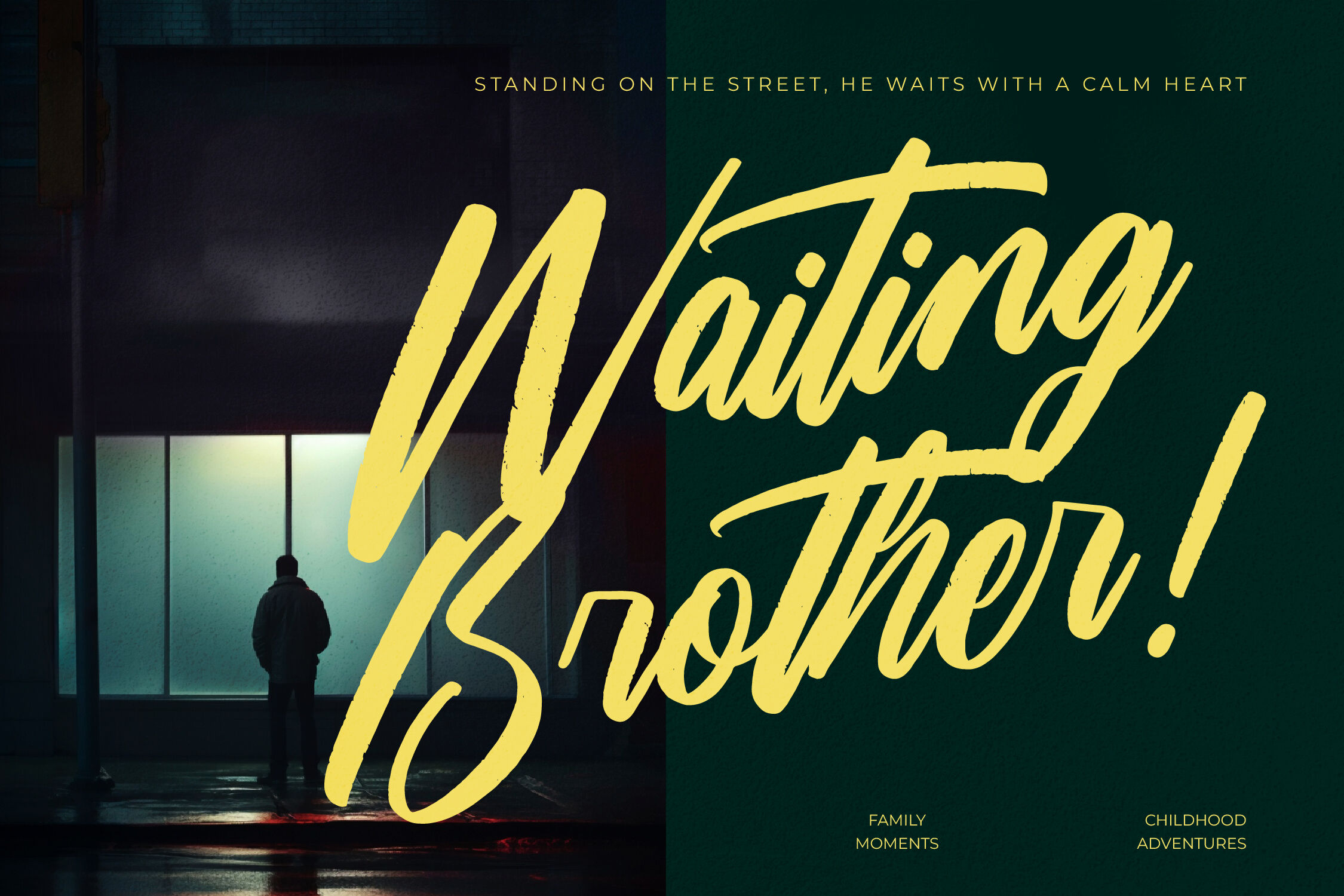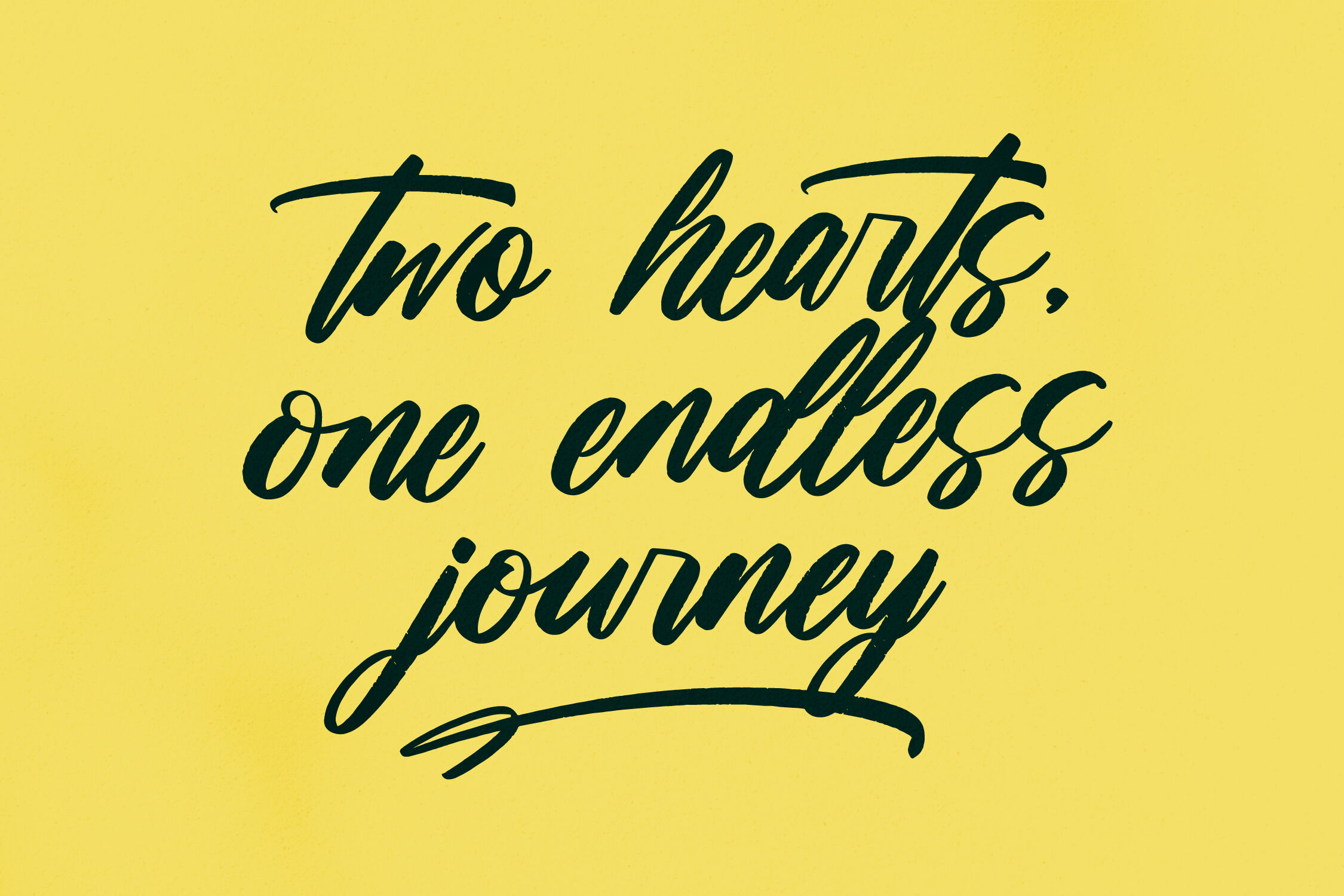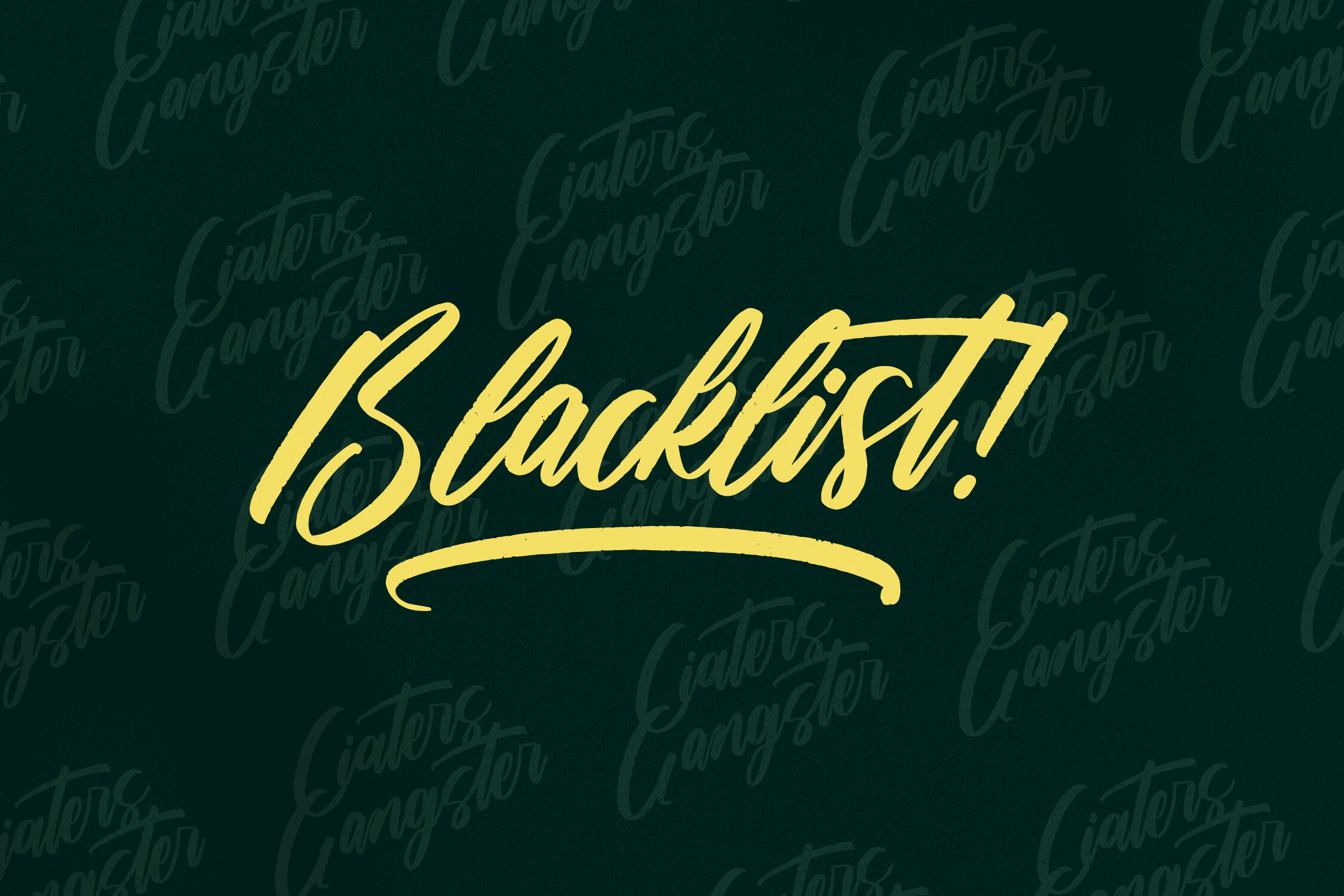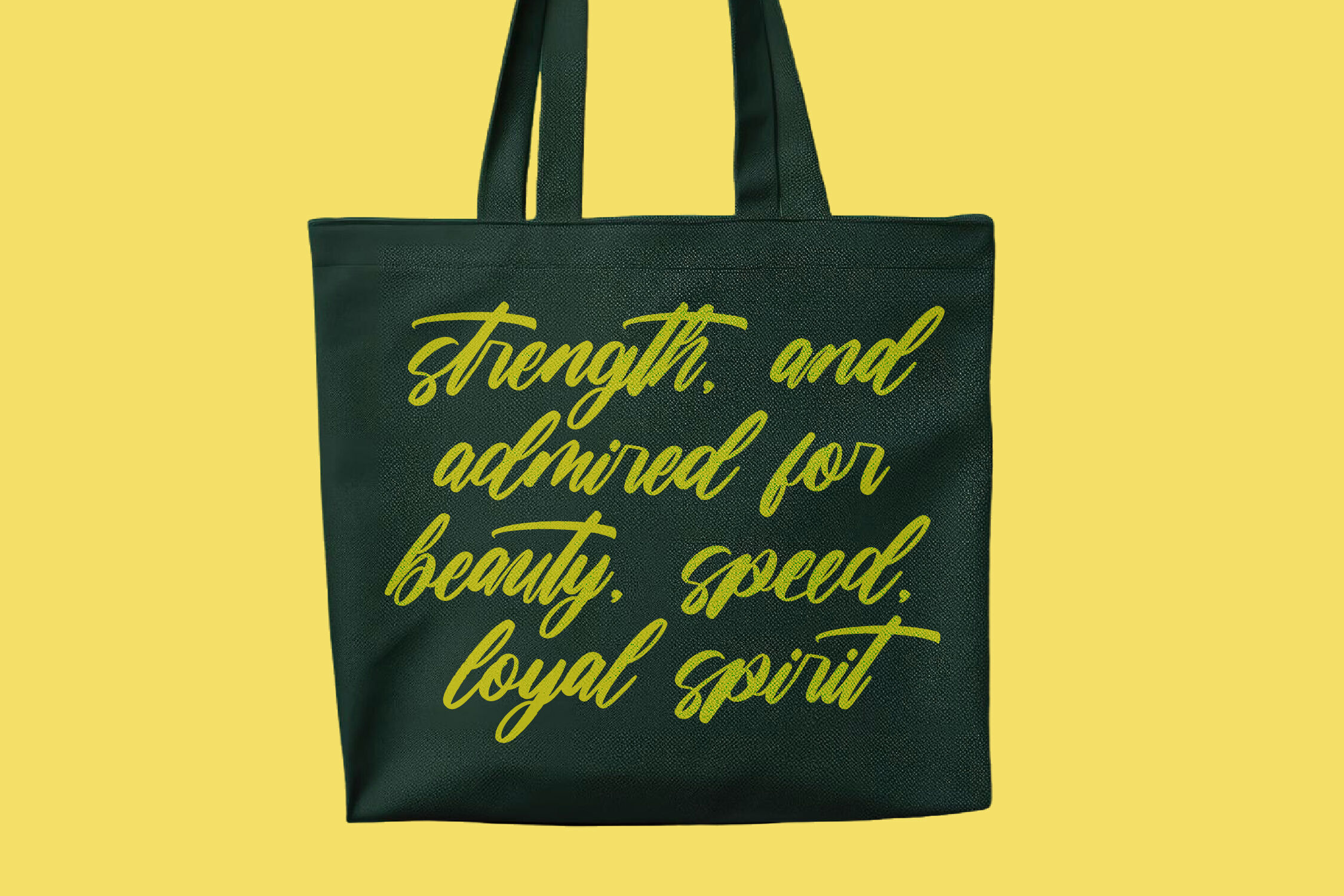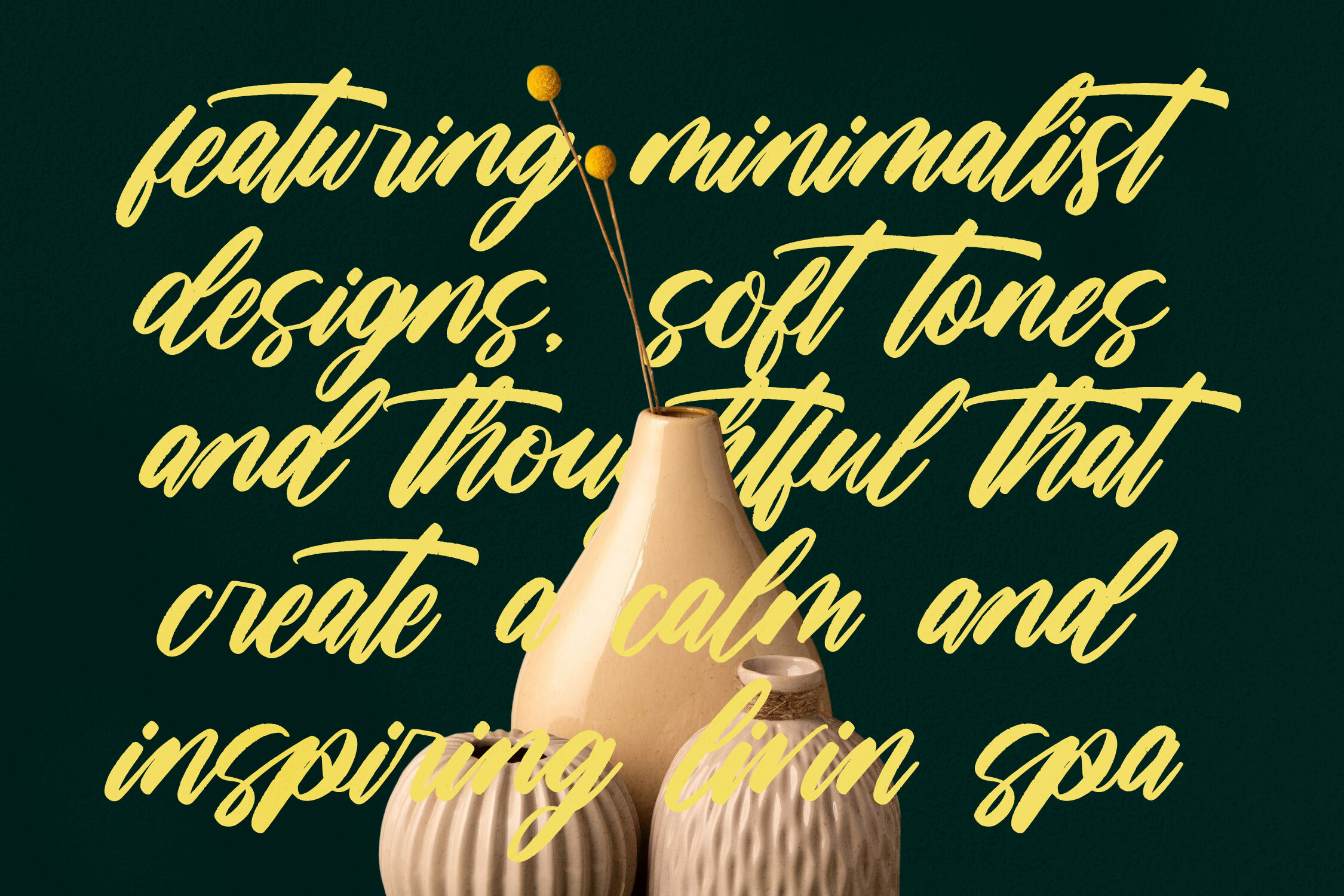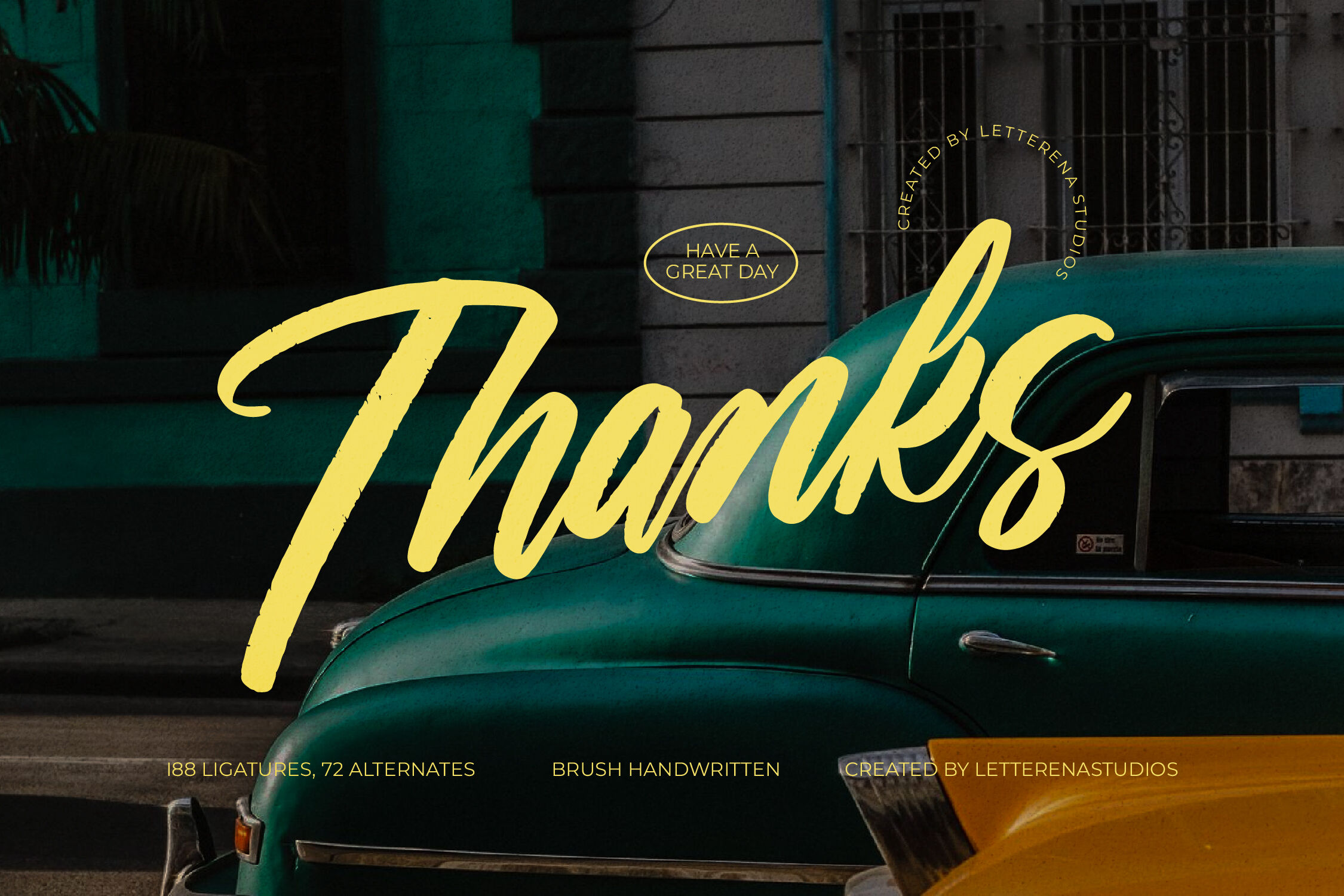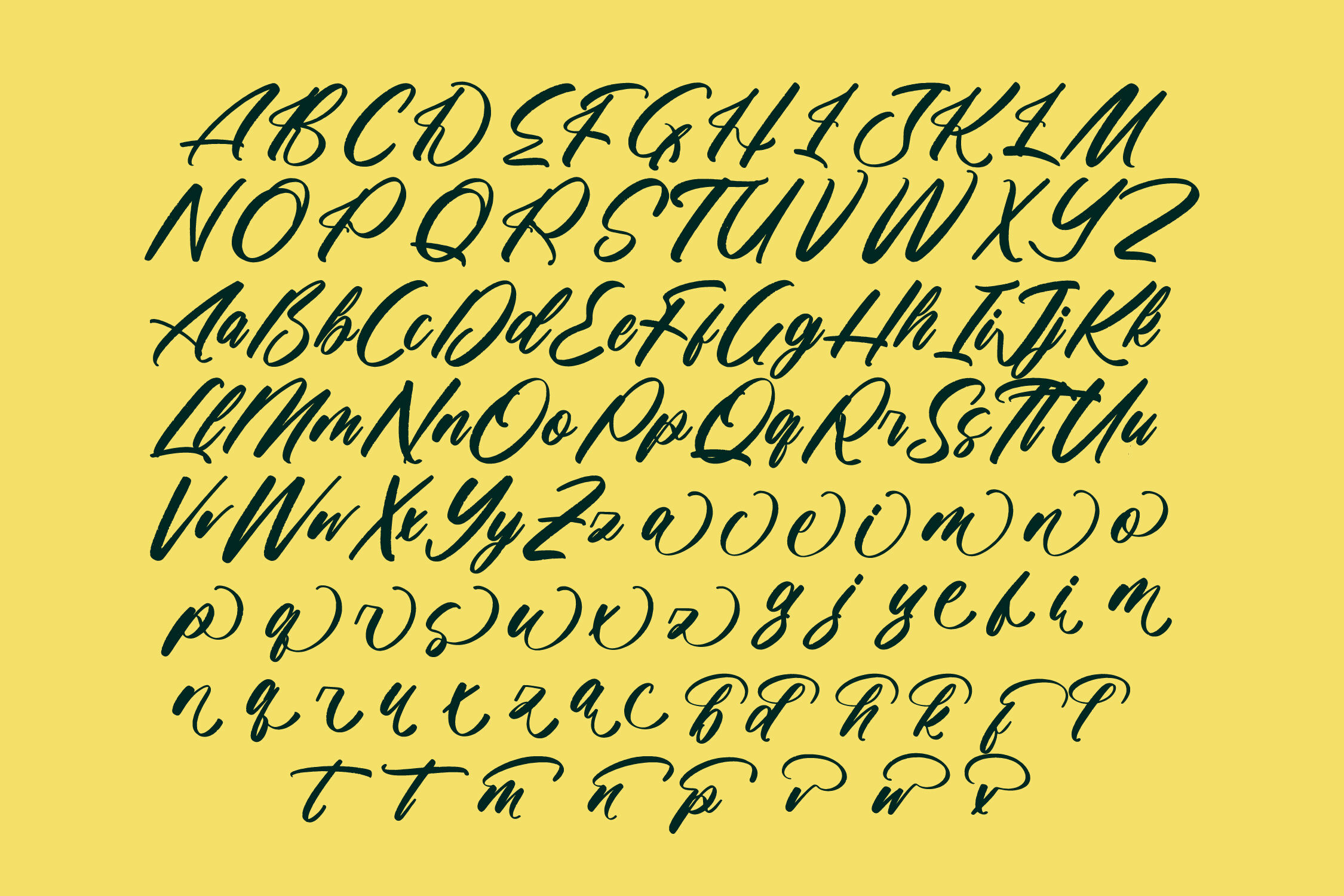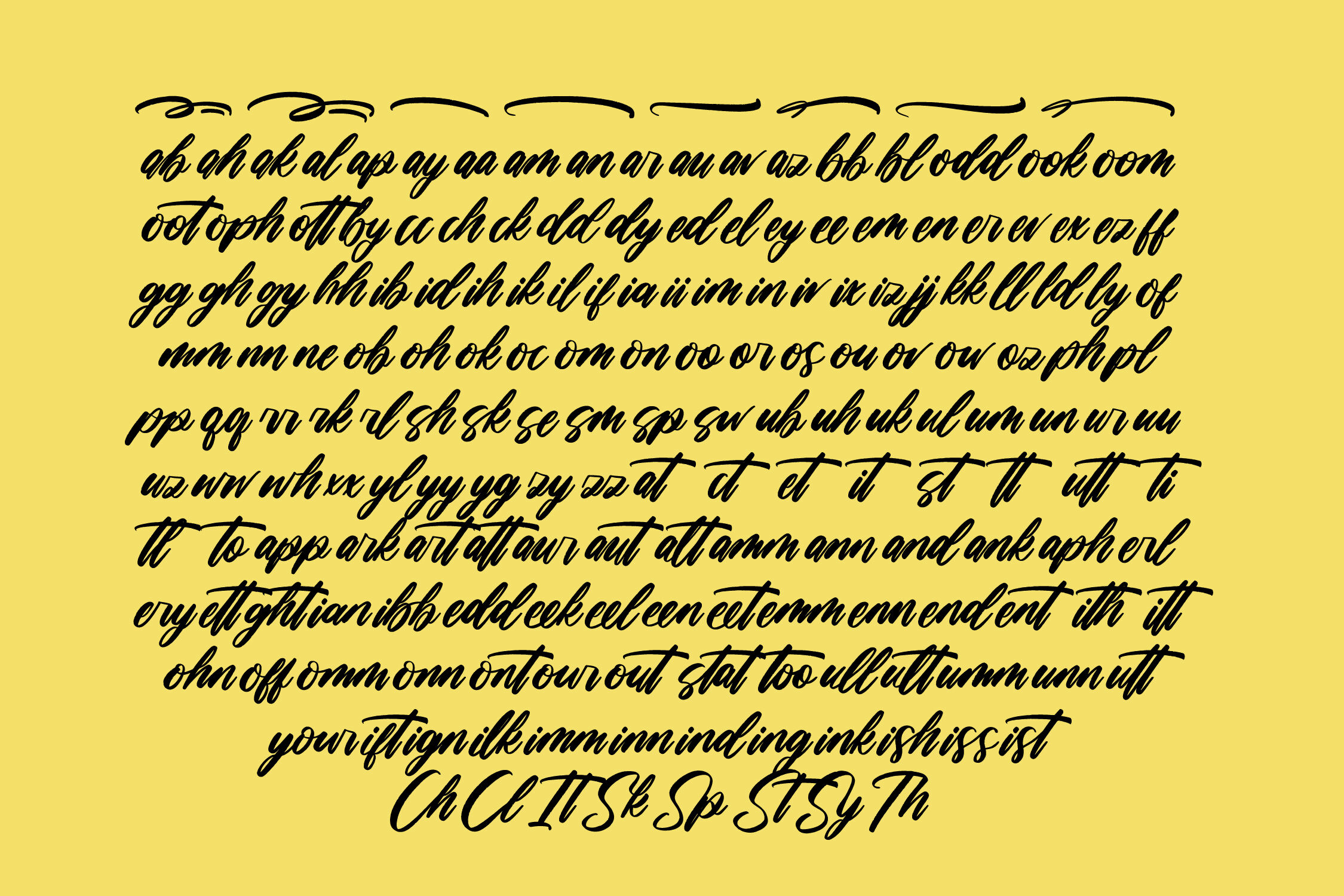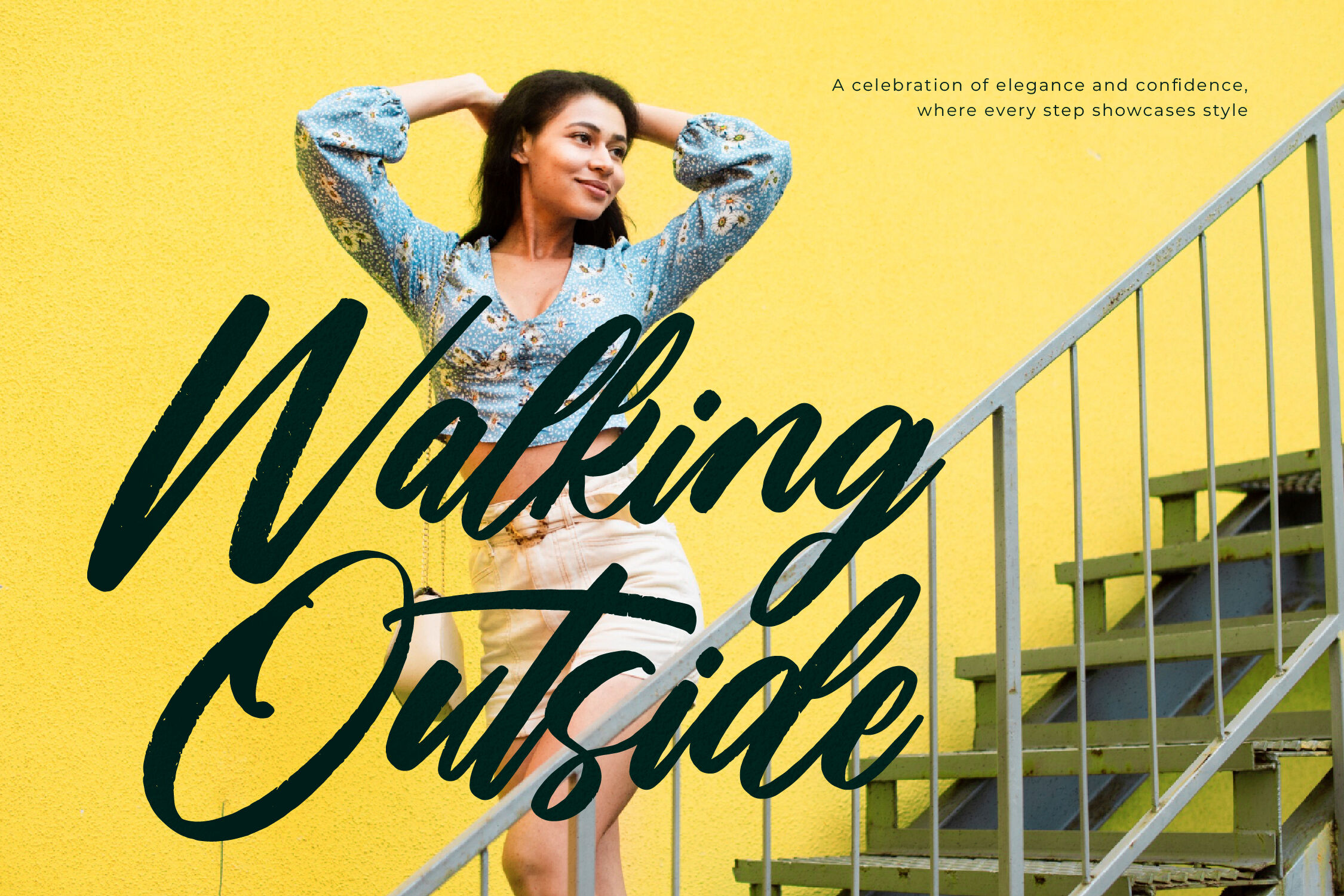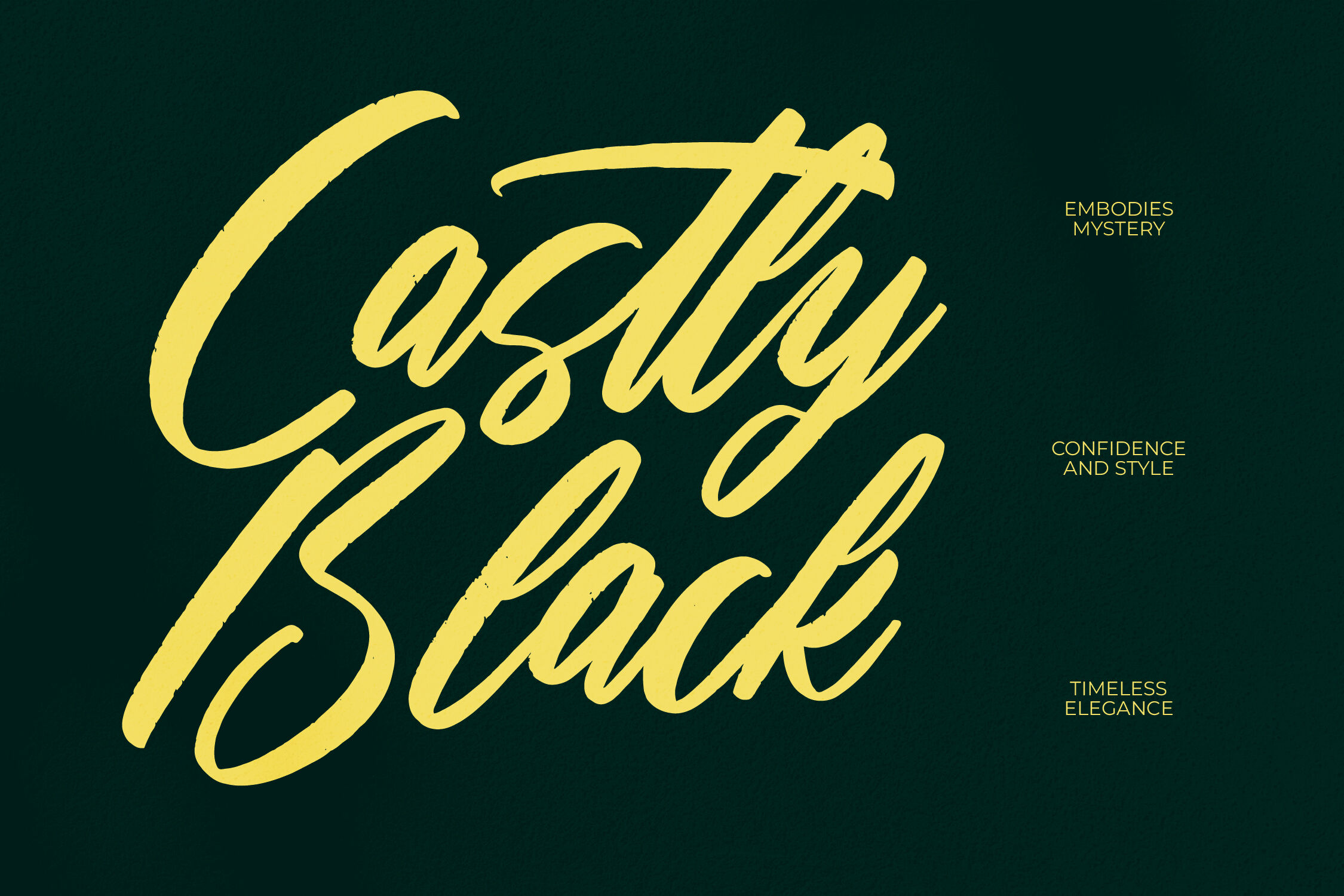
Ciaters Gangster - Brush Handwritten Font
Ciaters Gangster - Brush Handwritten Font, Ciaters Gangster is a bold brush handwritten font with a strong and energetic style. Featuring 188 ligatures and 72 alternates, it delivers expressive strokes that create a natural handwritten look. Perfect for branding, posters, apparel, packaging, and social media visuals, Ciater Gangster brings an urban, confident, and modern feel — ideal for projects that need a bold personal touch with authentic brush texture.